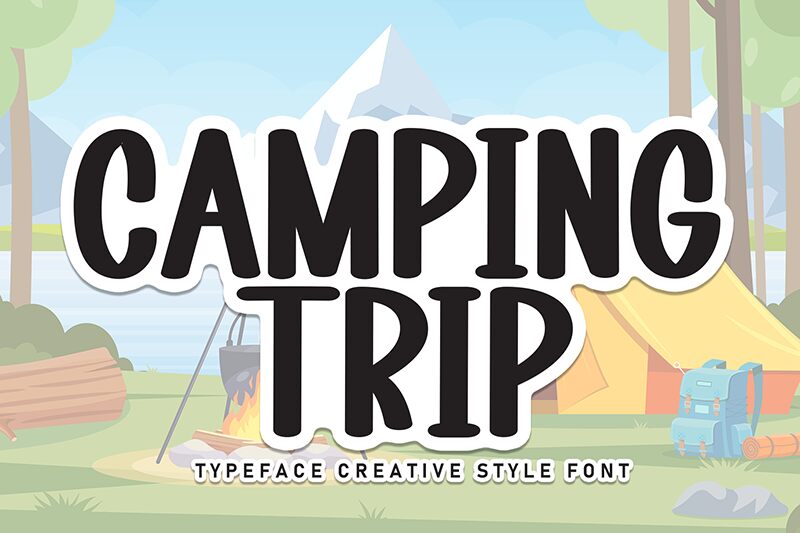
Camping Trip
Camping Trip font by Andi Moz is a condensed handwritten font with casual rounded letterforms. This warm and relaxed tool features the most approachable aesthetic that pairs well with informal uses. Also notable are the many retro vibes this lovely font bears.
This free handwritten font provides a modern solution for print designs but also digital designs like social media posts. Get the best headlines by using it in magazines, newspapers, ads, book covers, movie covers, posters, flyers, pop art and typography artwork.